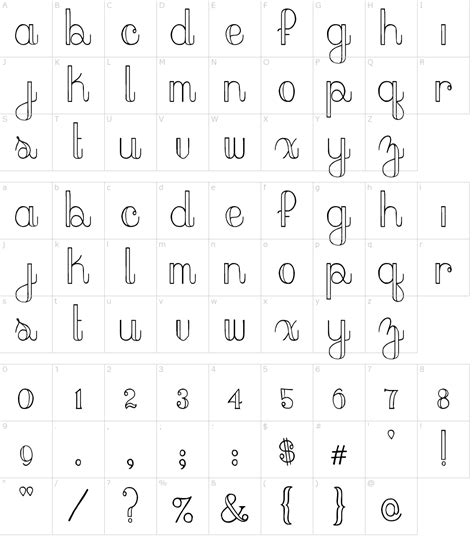
Home › Free Update › Peach Script Font / Peaches And Cream ~ Script Fonts ~ Creative Market / This font includes all upper and lower case standard character, beginning and ending character, punctuation and numerals.
Peach Script Font / Peaches And Cream ~ Script Fonts ~ Creative Market / This font includes all upper and lower case standard character, beginning and ending character, punctuation and numerals.. Introducing the peach pen script, a font that is very fresh and unique style handmade + bonus font, night in kansas & free pen script for your project. Peach modern calligraphy was designed by handwriting, and it has a modern and unique forms of calligraphy, the writing style is very natural and multiple language support. Something peach script a handwritten monoline font. Uploaded by sandy (1 styles). Peach pen script is perfectly suited to logo.
I'm sure, this font will make your rich look. Peaches cream peaches cream cream peaches script euro accents fancy handwritten various graffiti. Full version also comes with a peach pen script is perfectly suited to logo, stationery, poster, apparel, branding, wedding invitation. This demo font is not contain all of its unicode glyphs, and for personal use only. Something peach script a handwritten monoline font.
Similar fonts for celine peach script regular from myfonts.com. Peaches cream peaches cream cream peaches script euro accents fancy handwritten various graffiti. Download celine peach free script font (2 styles). You can download the best fonts, free fonts for personal or commercial use. You will be able to use this font in any program! You can add shadow, inline or hatch on the serif styles. Script typefaces are based upon the varied and often fluid stroke created by handwriting, pretty much like the cursive fonts just typically more elegant. Report a violation add to list.
Peach pen script is perfectly suited to logo. This font was designed by handwriting, and it has a modern and unique forms of calligraphy This font includes all upper and lower case standard character, beginning and ending character, punctuation and numerals. Fonts for free use only in personal project. Peach market font a cute handwritten script font. Peach modern calligraphy was designed by handwriting, and it has a modern and unique forms of calligraphy, the writing style is very natural and multiple language support. Cinnamon peaches is a beautiful family of layered fonts. They are organized into highly regular formal types. Font details and information celine peach script (0 star) (46 kb) (4 fonts) 216 downloads, 7 the last thirty days (demo) by 0 downloads yesterday, 0 the last seven days, 7 the last thirty days | (4 fonts). You can download the best fonts, free fonts for personal or commercial use. Licensed for personal and commercial use. This is a classic thin font with an oblique style. Peach pen is a textured handmade script font with own personality.
The best selection of script fonts for windows and macintosh. Report a violation add to list. Similar fonts for celine peach script regular from myfonts.com. This is a classic thin font with an oblique style. You will be able to use this font in any program!
They are organized into highly regular formal types. Free download of celine peach script font. Celine peach script regular by copyright (c) 2020 by craft supply co. This is a classic thin font with an oblique style. Peaches is a classic calligraphic font. Free fonts, fonts, download free fonts, font lot. This font was designed by handwriting, and it has a modern and unique forms of calligraphy $ free > personal use.
Here you will get a beautiful classic font. Cinnamon peaches is a beautiful family of layered fonts. Script typefaces are based upon the varied and often fluid stroke created by handwriting, pretty much like the cursive fonts just typically more elegant. The best selection of script fonts for windows and macintosh. Report a violation add to list. $ free > personal use. Peach modern calligraphy was designed by handwriting, and it has a modern and unique forms of calligraphy, the writing style is very natural and multiple language support. This demo font is not contain all of its unicode glyphs, and for personal use only. Download celine peach free script font (2 styles). Peaches cream peaches cream cream peaches script euro accents fancy handwritten various graffiti. You can download the best fonts, free fonts for personal or commercial use. Uploaded by sandy (1 styles). This font includes all upper and lower case standard character, beginning and ending character, punctuation and numerals.
Download 10,000 fonts with one click for $19.95. We have a huge range of script products available. Full version also comes with a peach pen script is perfectly suited to logo, stationery, poster, apparel, branding, wedding invitation. Similar fonts for celine peach script regular from myfonts.com. Uploaded by sandy (1 styles).
Celine Peach Font Duo - Download Fonts from www.downloadfonts.io
This font includes all upper and lower case standard character, beginning and ending character, punctuation and numerals. The best selection of script fonts for windows and macintosh. Peaches cream peaches cream cream peaches script euro accents fancy handwritten various graffiti. This font was designed by handwriting, and it has a modern and unique forms of calligraphy Here you will get a beautiful classic font. Peach modern calligraphy was designed by handwriting, and it has a modern and unique forms of calligraphy, the writing style is very natural and multiple language support. Download 10,000 fonts with one click for $19.95. Celine peach script, craft supply, handwriting, script, celine peach sans.otf, celine peach font archive files.
With beautiful script type, professional sans serif font and more.
Licensed for personal and commercial use. This demo font is not contain all of its unicode glyphs, and for personal use only. Something peach script a handwritten monoline font. With beautiful script type, professional sans serif font and more. Peaches is a classic calligraphic font. Fonts for free use only in personal project. This font includes all upper and lower case standard character, beginning and ending character, punctuation and numerals. This font was designed by handwriting, and it has a modern and unique forms of calligraphy Introducing the peach pen script, a font that is very fresh and unique style handmade + bonus font, night in kansas & free pen script for your project. We have a huge range of script products available. You can download the best fonts, free fonts for personal or commercial use. This is a classic thin font with an oblique style. Peach pen is a textured handmade script font with own personality.